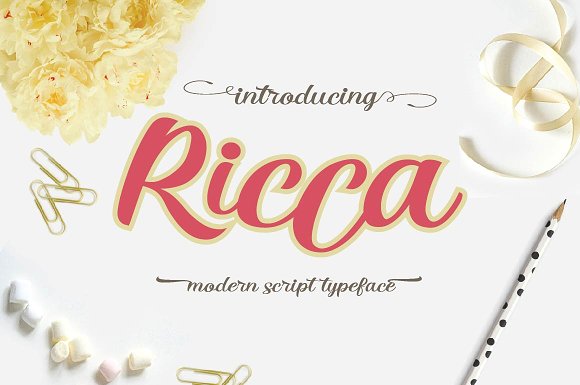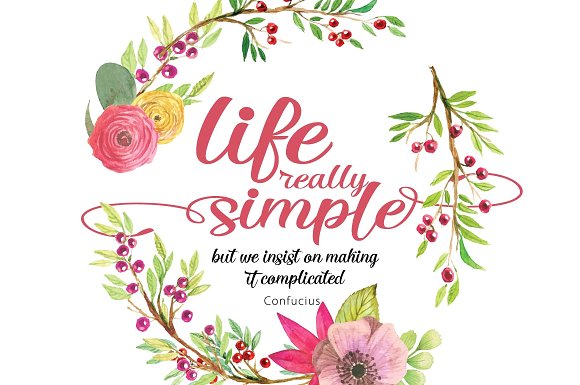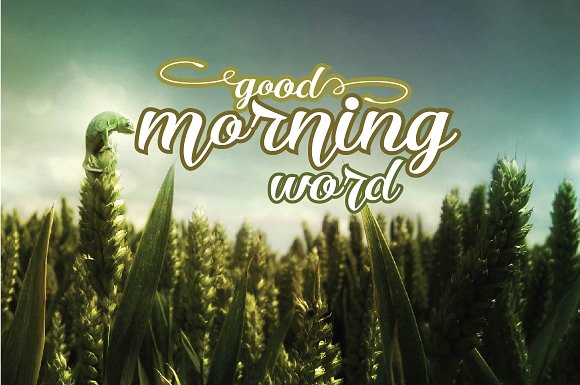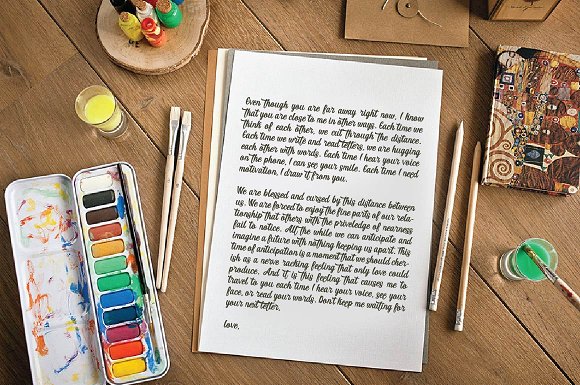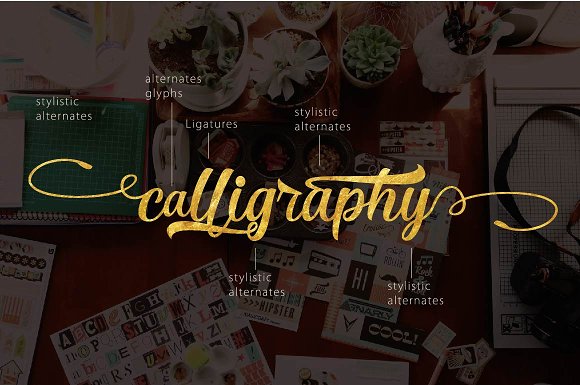
HomeScript FontsRicca Font Script Fonts Ricca Font FacebookXPinterestWhatsApp Ricca Font Poster 2 Ricca Font Poster 3 Ricca Font Poster 4 Ricca Font Poster 5 About Ricca Font Ricca is a fresh and fluid handwritten font. DOWNLOAD ON CREATIVE FABRICAThis font is sold and delivered by Creative Fabrica. Font Canyon may earn a commission if you buy through this link. People also explored Perfectoy Font The Kastle Font Goldie Angle Font Matured Font Core Reason Font Dream Shore Font Galapinos Font Zebra Split Font Creaky 269 0 TagsRicca Font Previous articleRaditya FontNext articleRisthi Font LEAVE A REPLY Cancel reply Comment: Please enter your comment! Name:* Please enter your name here Email:* You have entered an incorrect email address! Please enter your email address here Website: Save my name, email, and website in this browser for the next time I comment. Personal Use Free Frozdotre Personal Use Free Read more about this font Quickline Personal Use Free Read more about this font Boston Traffic Personal Use Free Read more about this font Bollado Personal Use Free Read more about this font BLOG Free vs Paid Fonts: Why Investing in Premium Fonts Is Worth It Free vs Paid Fonts: Why Premium Fonts Are Worth It in 2025 The debate of free vs paid fonts continues in the design world. While... Best Fonts for T-Shirt Design – Top 2025 Picks Modern Sans-Serif Fonts That Brands Love in 2025 Transform Your Website: Elevate Your Typography with 7 Best Web Font Generators